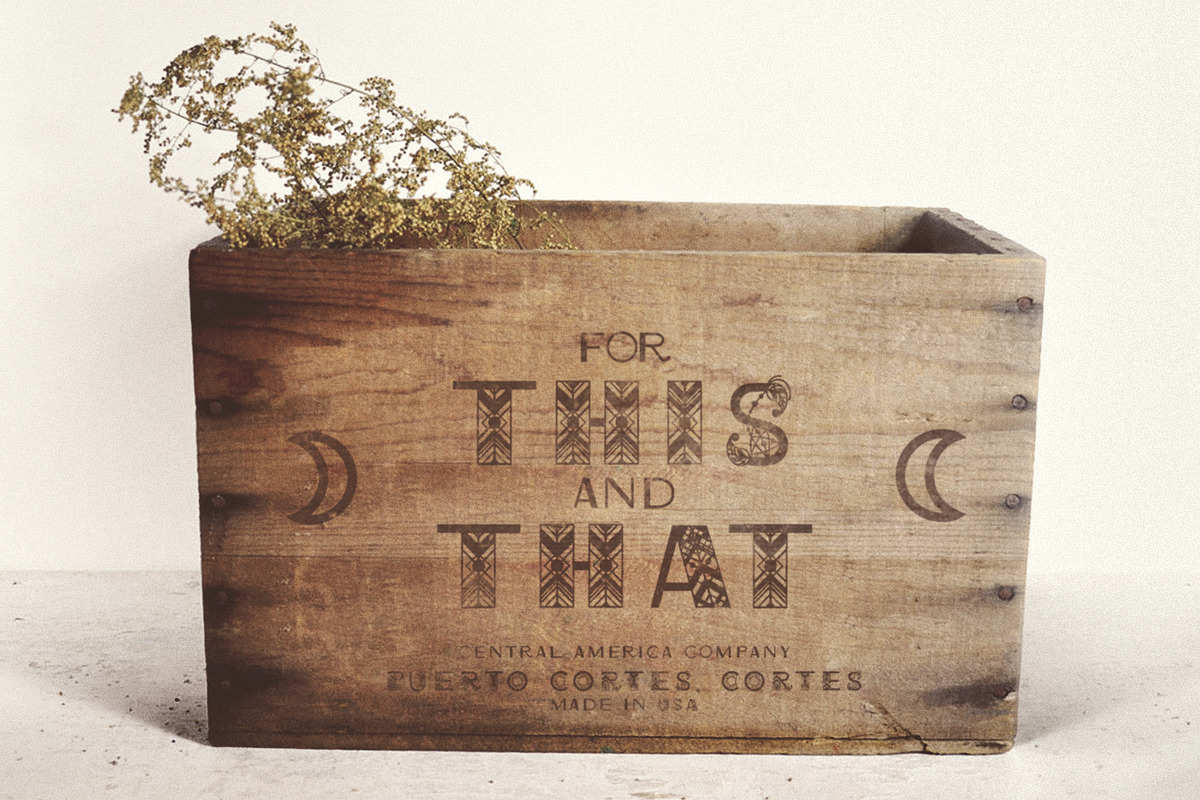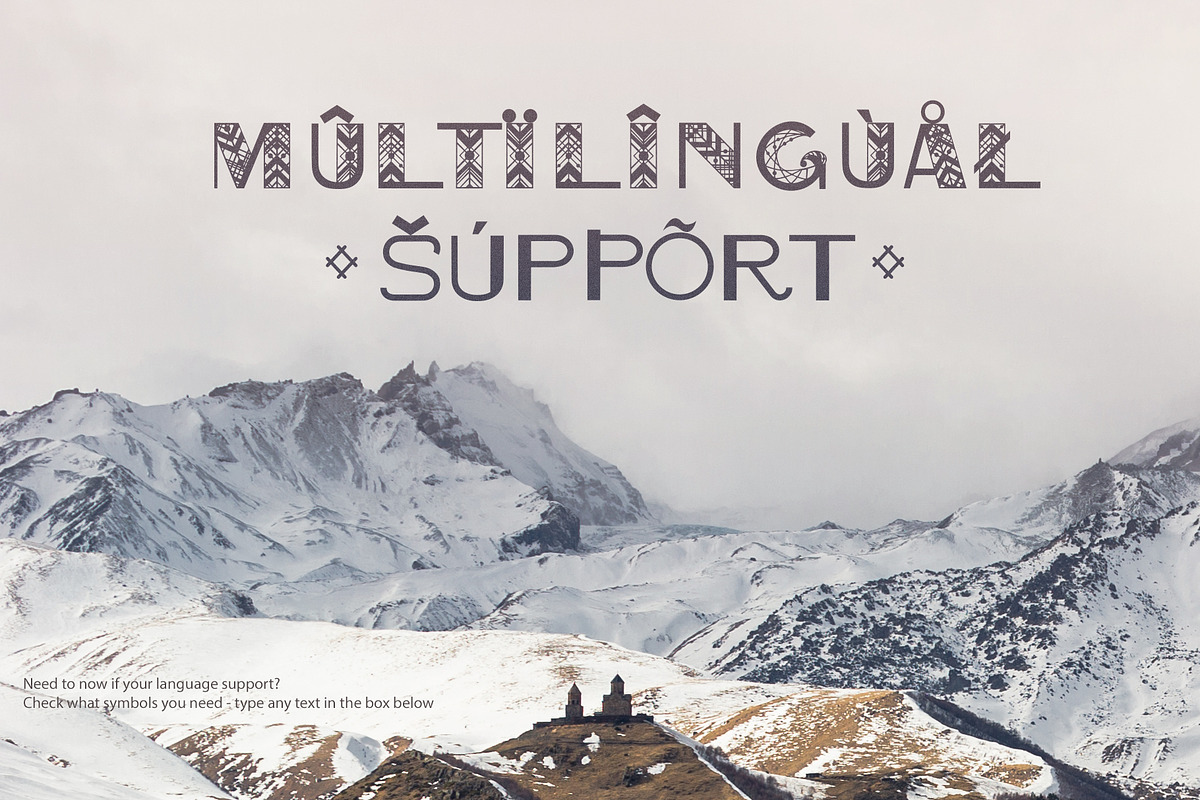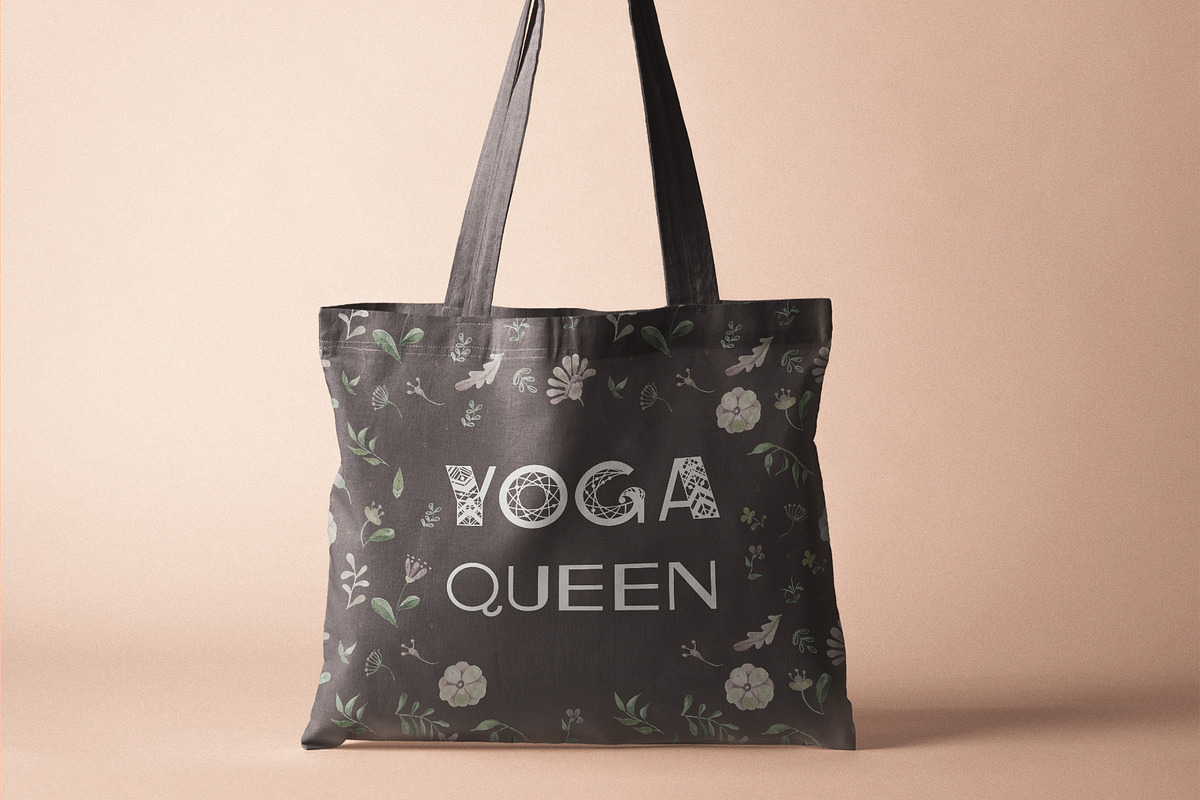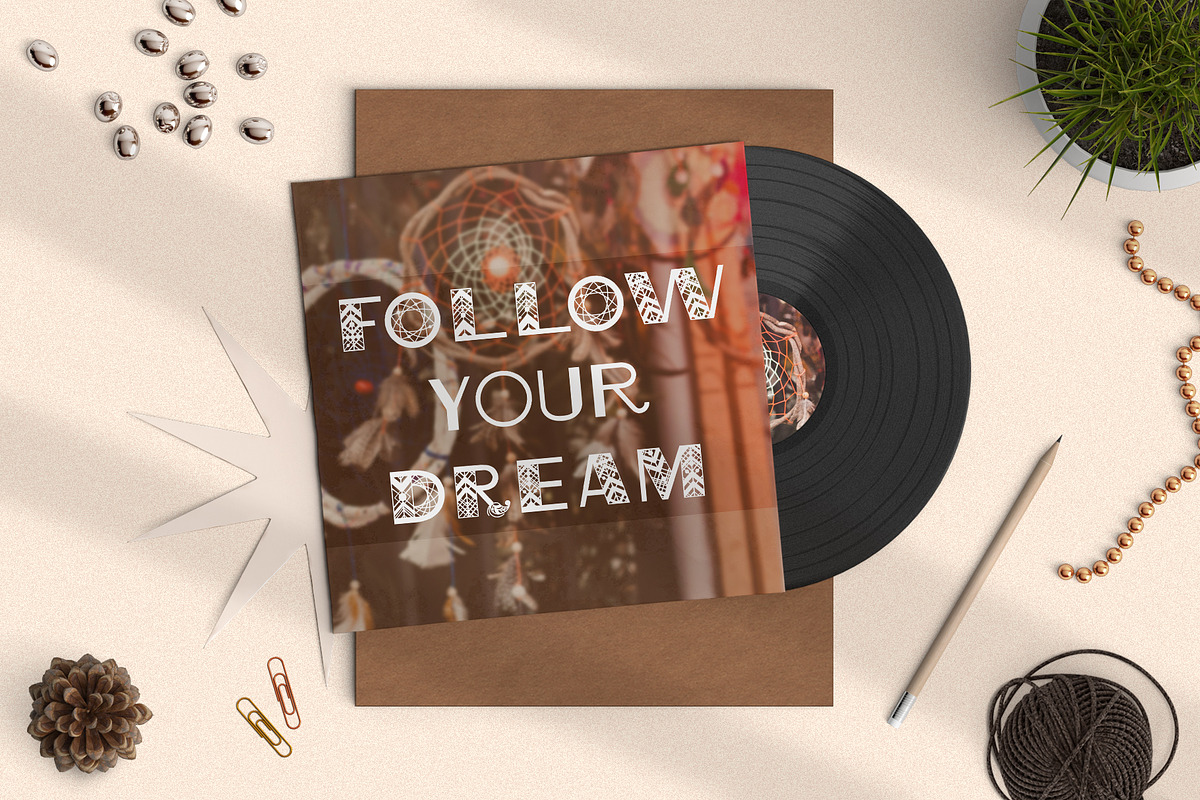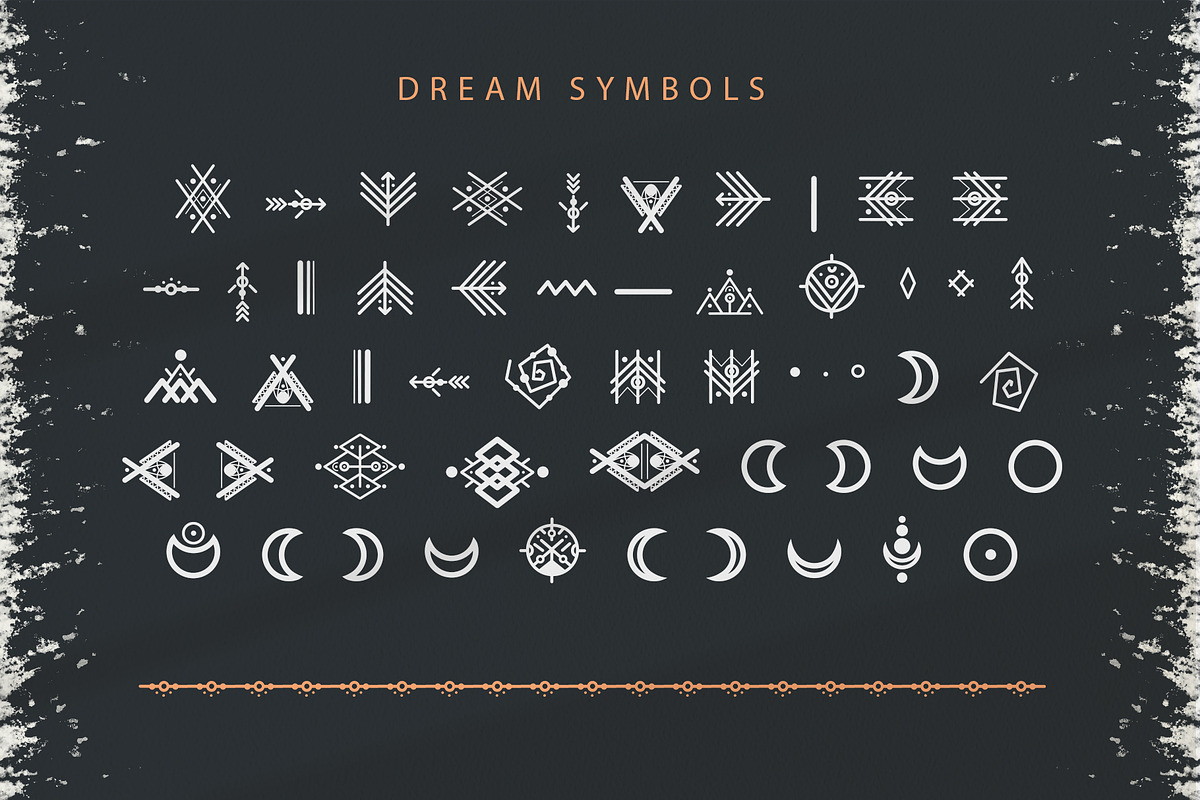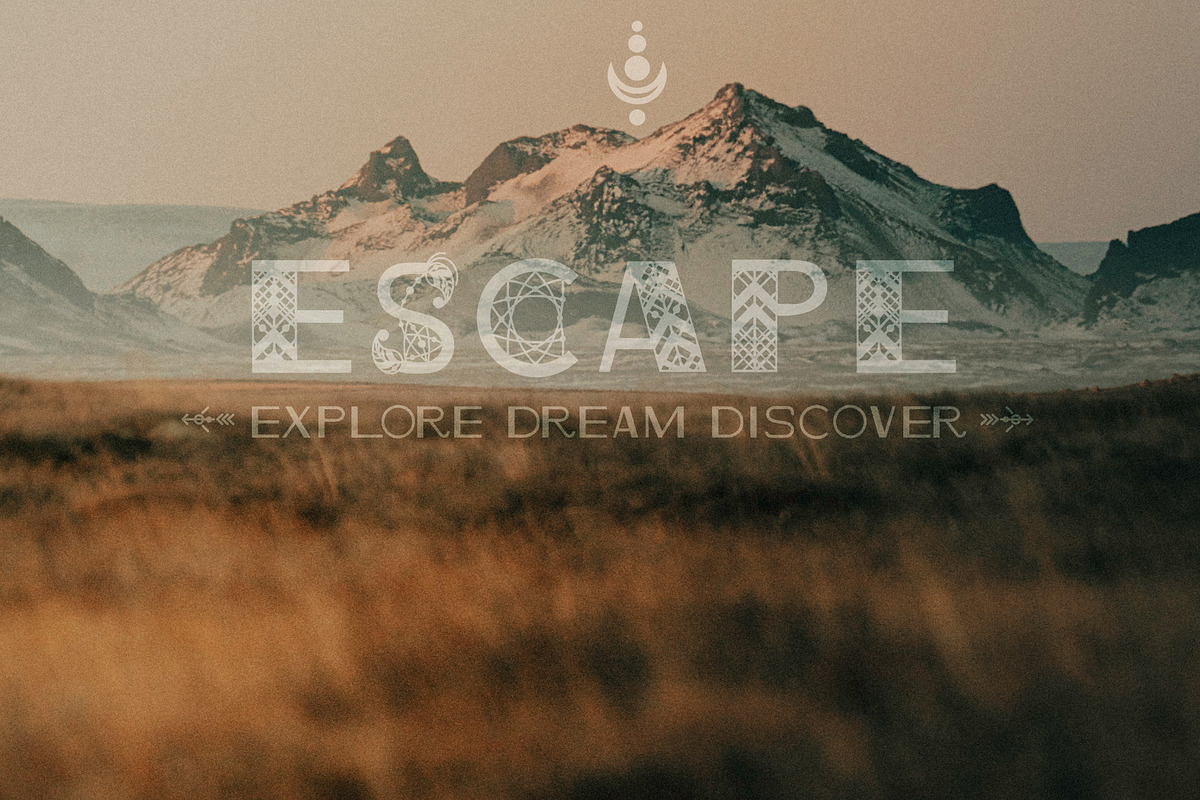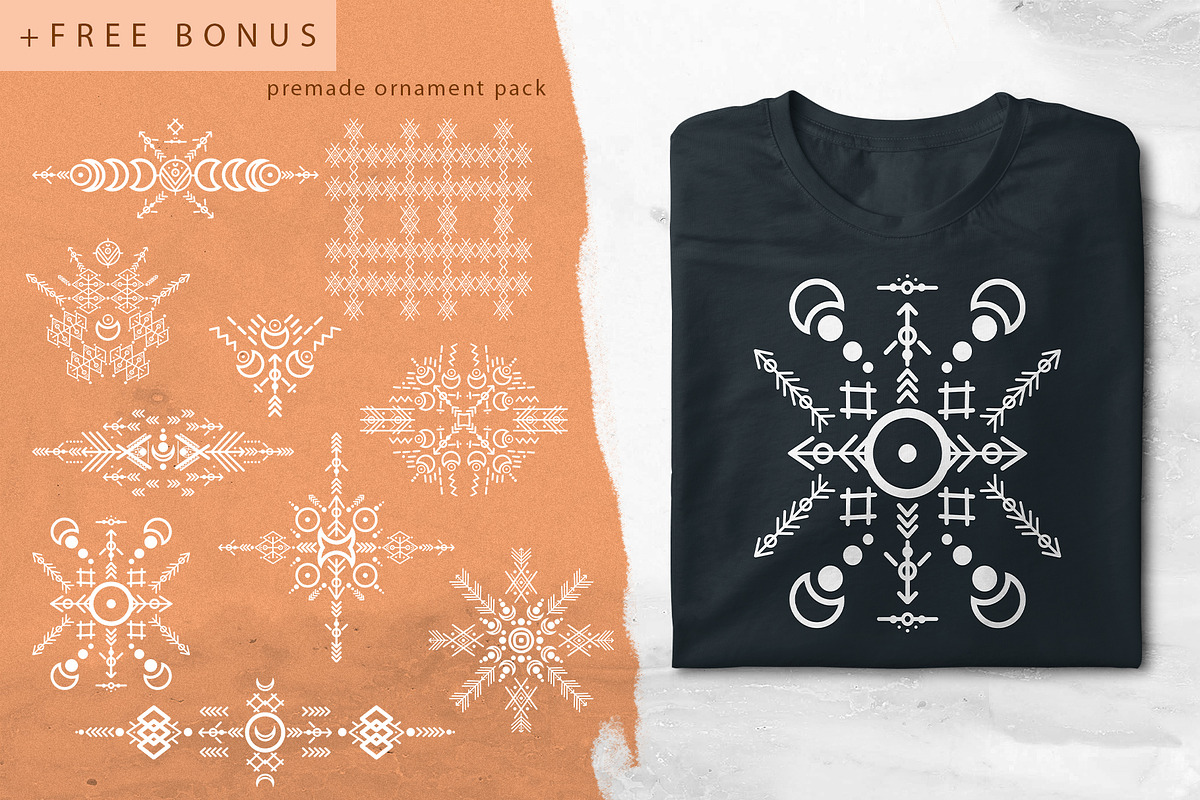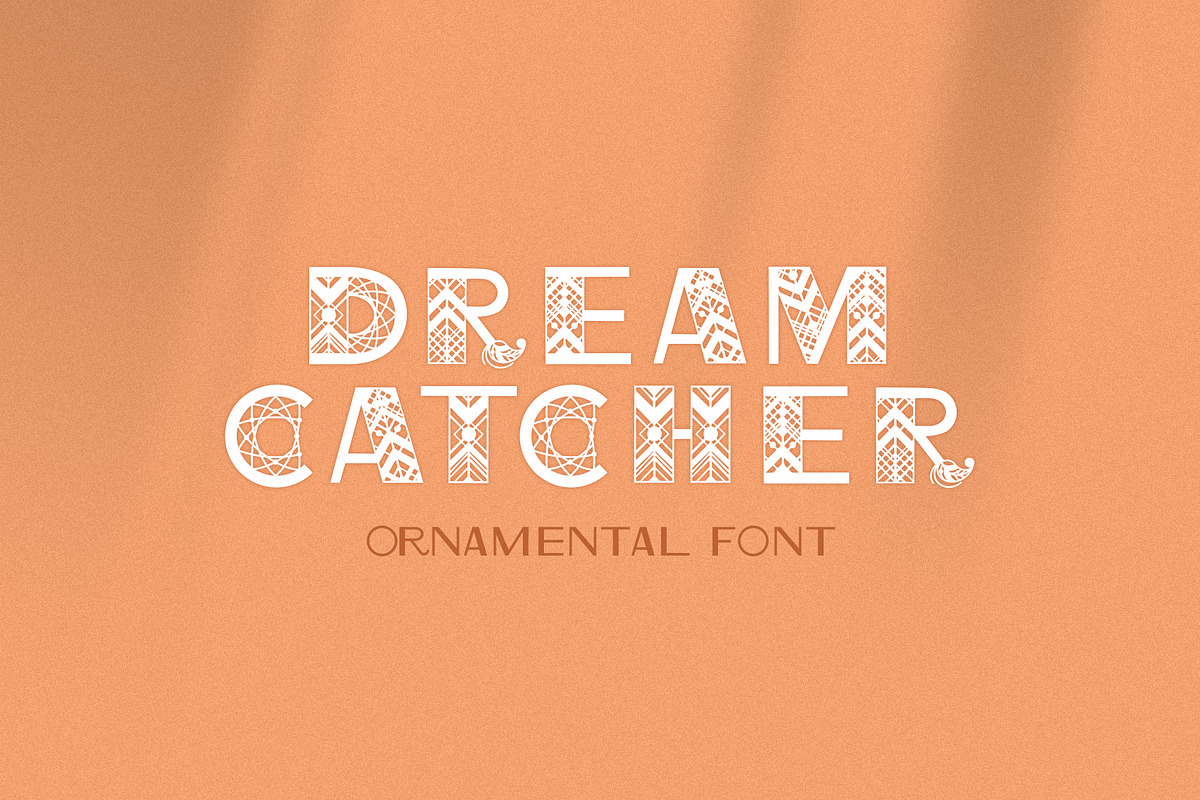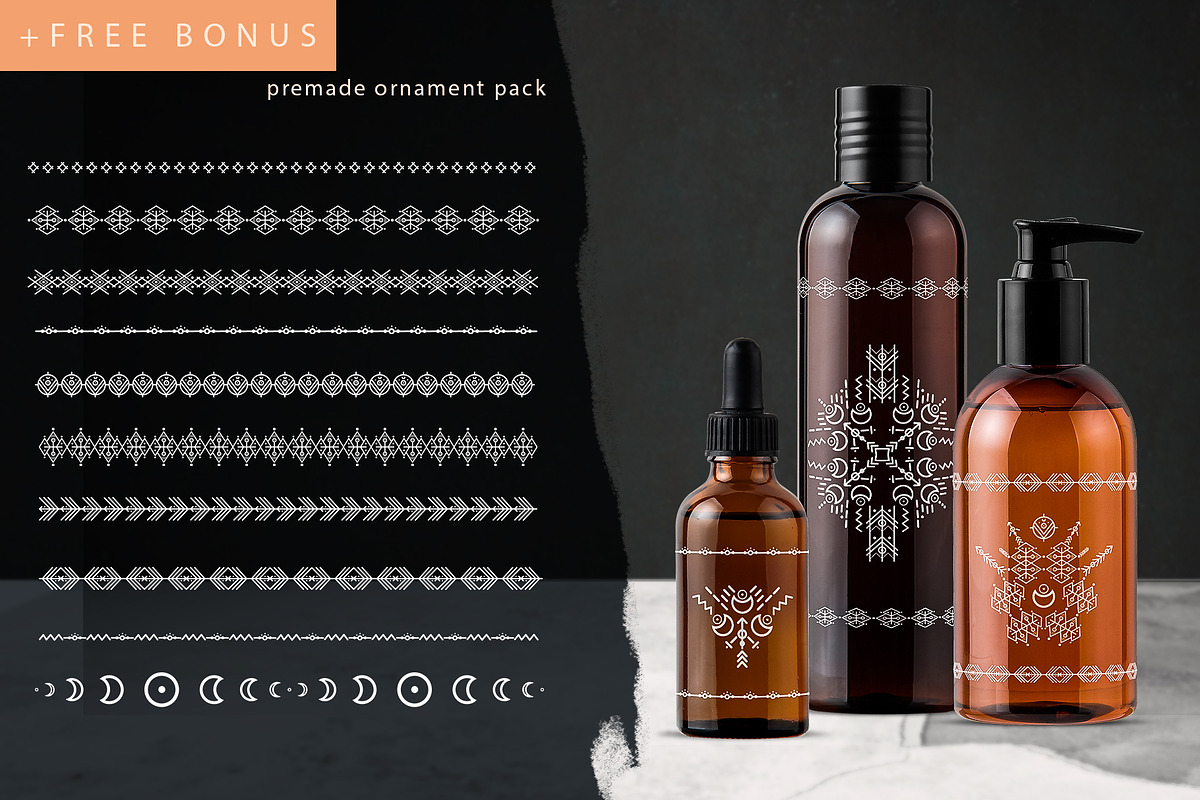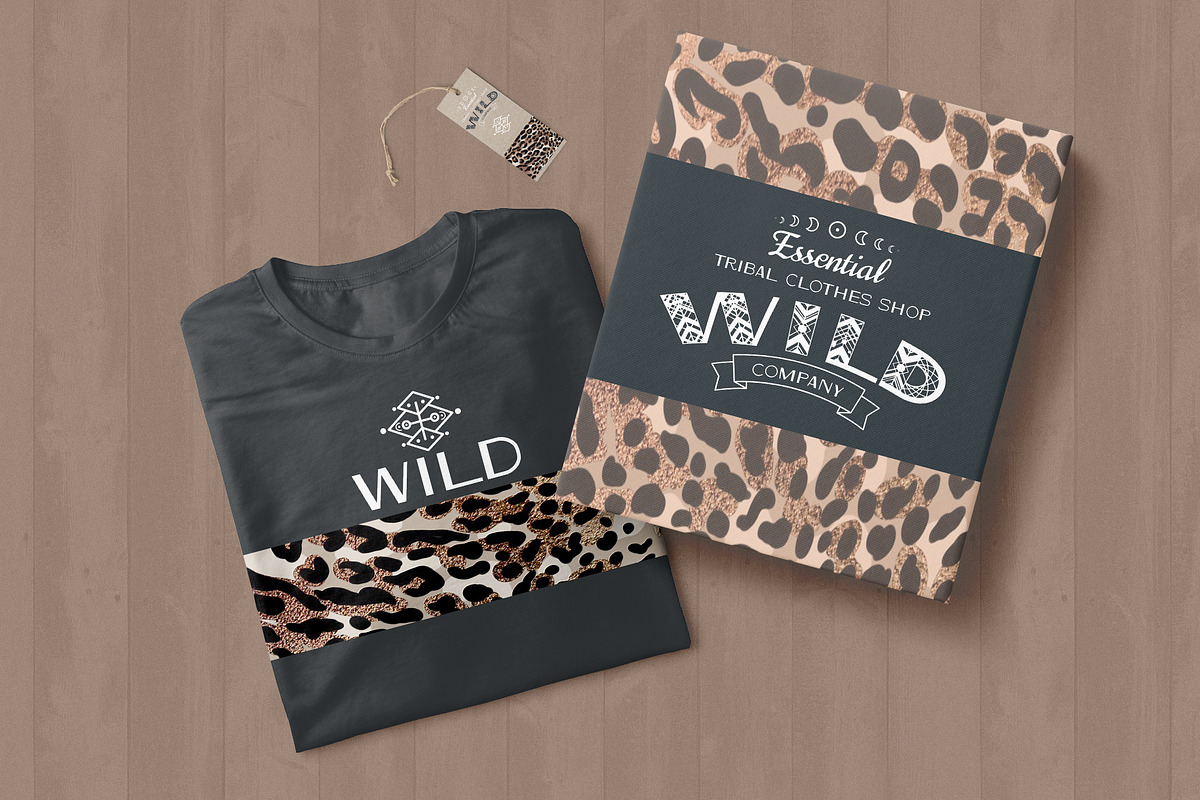
Dreamcatcher | Ornamental Font
Dreamcatcher font is amazing font with beautiful ornaments. It is a display font with contrast in decorative elements. The typeface includes Regular and Symbol versions.
Combine Dreamcatcher font and symbols you’ll get a fantastic design. They together will help you to make design for lettering posters, website, invitation, photo overlay and may be some cover. This font looks great on cloth prints and different packaging for craft product. Also you can use each symbols as individual decor or combine it into amazing ornament .
- Character set A-Z;
- decorative Uppercase & Simple Lowercase;
- decorative Numerals & Punctuation;
- multilingual support.